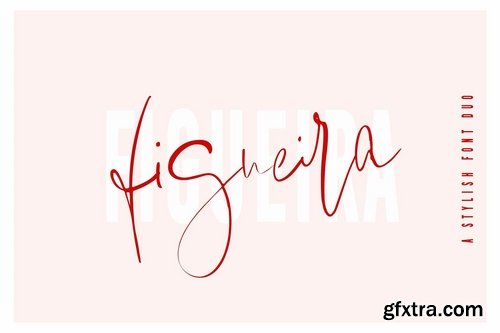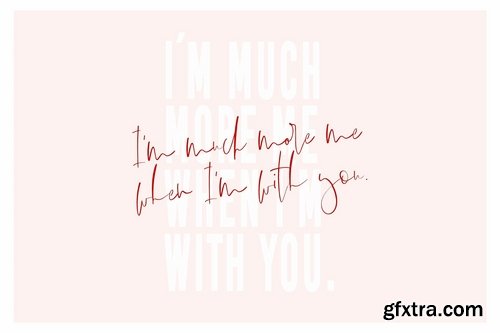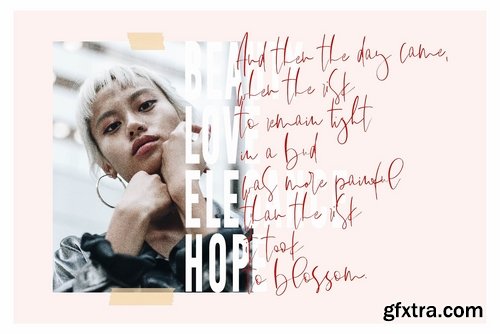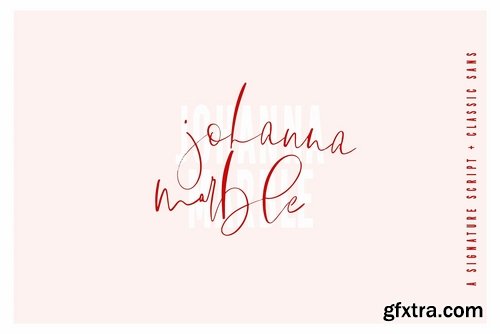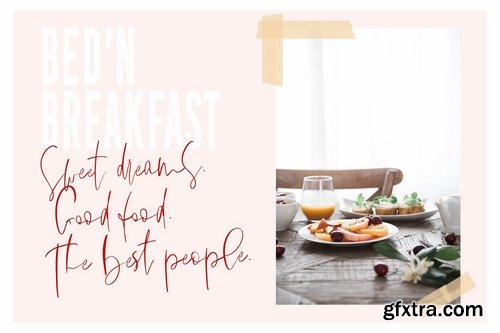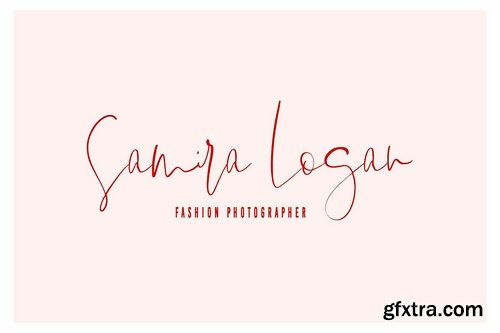
Figueira is a stylish font duo with the perfect combination of an energetic signature script and a bold uppercase-only sans serif. The combination of both fonts work perfect for all kind of branding projects, printed quotes, invitation cards, social media headers, product packaging and a lot more!